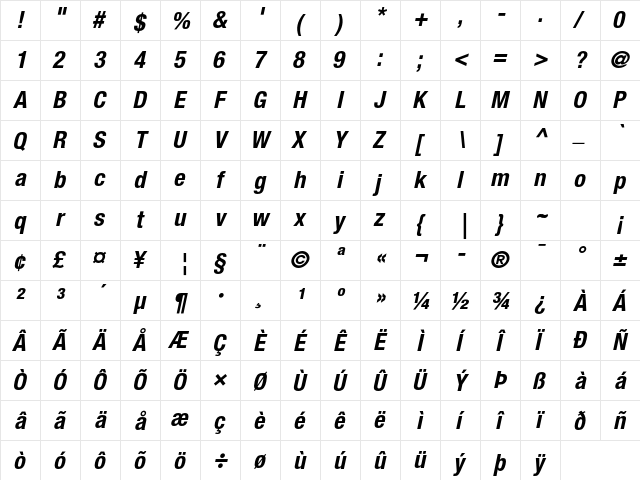
Helvetica Neue LT Std 77 Bold Condensed Oblique Font Preview
| Designer | Linotype Staff |
Design Context for Helvetica Neue LT Std Typeface
Helvetica Neue LT Std takes a measured approach to typography — its balanced proportions and neutral character make it a reliable workhorse for both digital and print work. The dynamic lean of this cut emphasises speed and emphasis in any layout. Its bold stroke weight gives it real presence on the page. Its narrow stance lets it pack a punch even in space-constrained designs.
Pro Tip: Try Helvetica Neue LT Std for annotation and caption copy alongside an upright companion — the contrast in angle creates a dynamic but ordered typographic system.